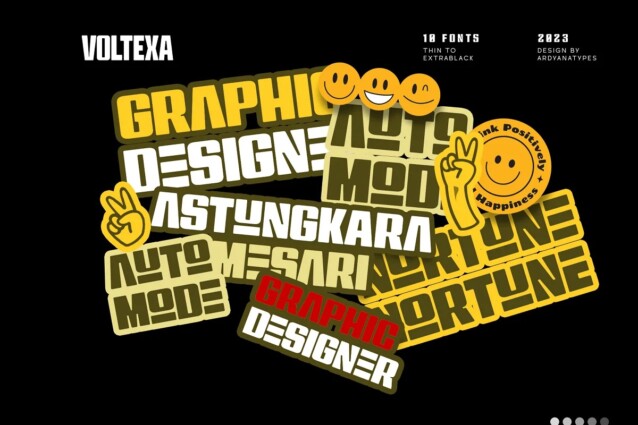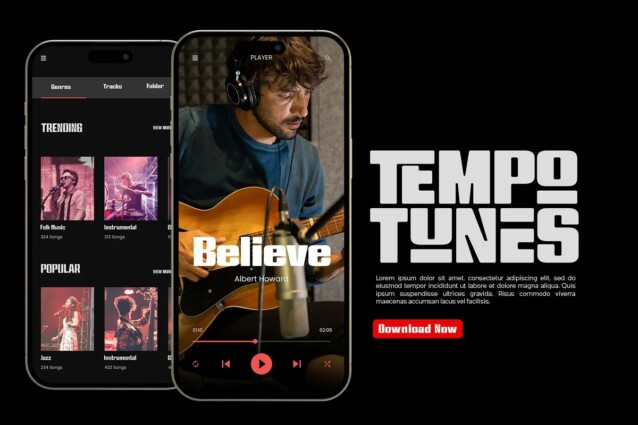
Voltexa Font is a display typeface inspired by chunky yet funky type. Designed with a bold and firm style, it aims to provide a broad range of options for every designer. What sets Voltexa apart are its sharp curves in each letter, creating an elegant and modern yet strong impression.
Tailored to meet diverse design needs, Voltexa can adapt to various contexts. With 10 available thickness levels, designers have the freedom to express their creativity limitlessly. This font also comes with OpenType features for ease of use and flexibility.